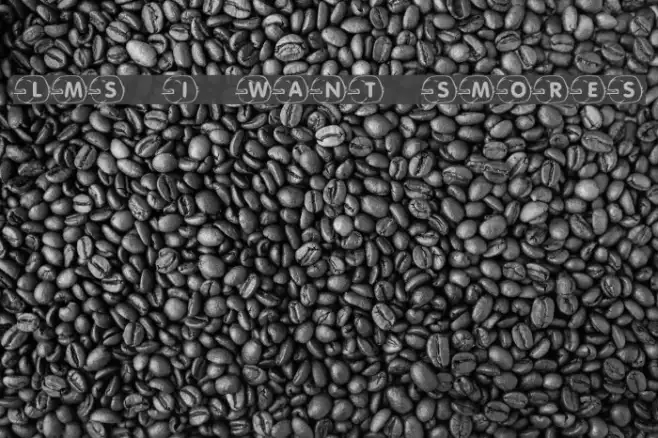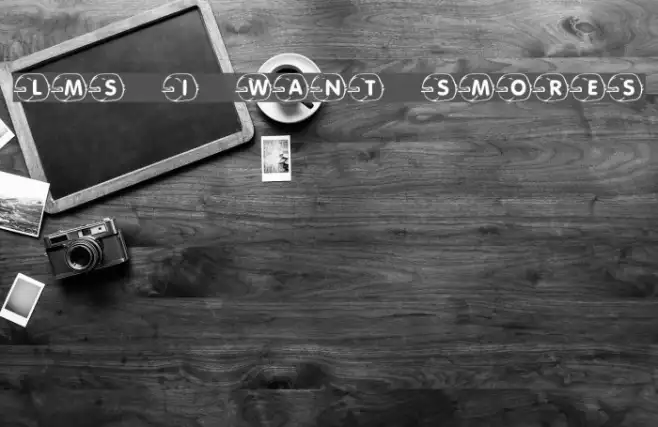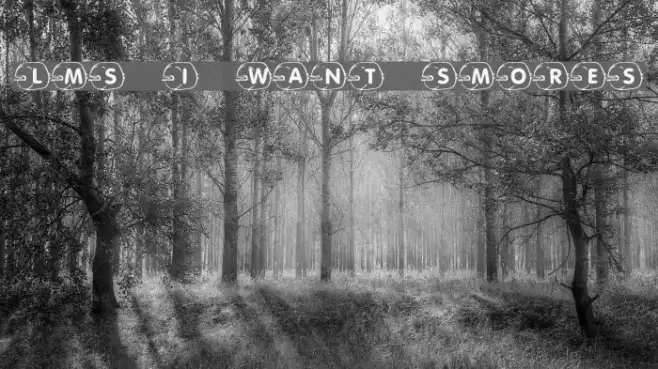
LMS I Want S'Mores Font
LMS I Want S'Mores Description
This playful and whimsical font features characters enclosed in circular shapes, reminiscent of marshmallows or toasted treats. Each letter is bold and distinct, with a slight shadow effect that adds depth. The font's unique style is characterized by its decorative elements, making it stand out for creative projects. The overall appearance is fun and lighthearted, perfect for capturing attention and adding a touch of charm to any design.
Overall StyleWhimsical
Proposed ProjectsIdeal for children's book covers, playful branding, themed party invitations, and creative posters.